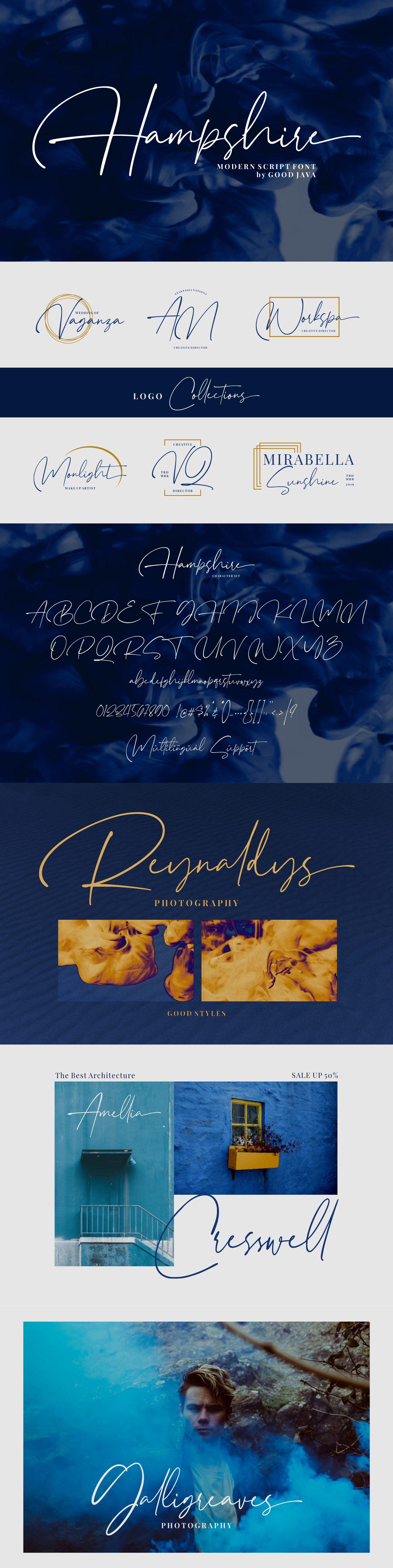
Hampshire - Modern Script Font
Introducing Hampshire - Modern Script Font
Hampshire - Modern Script Font is a natural & modern handwritten font. I'ts Perfect for logo, invitation, stationery, wedding designs, social media posts, advertisements, product packaging, product designs, label, photography, watermark, special events or anything. This font include : Hampshire OTF-TTF-WOFF, Ligatures, and also Multilingual support.
What's Advantages Hampshire ?
- Very great for branding, logotype, handletteing, invitations, or fashion branding.